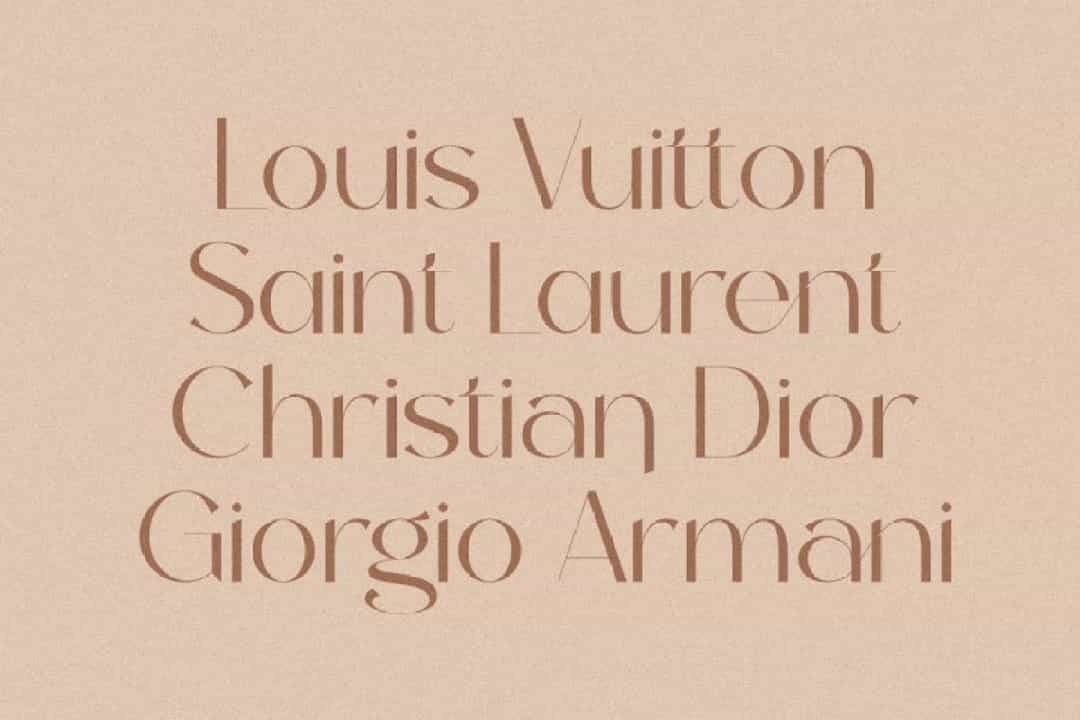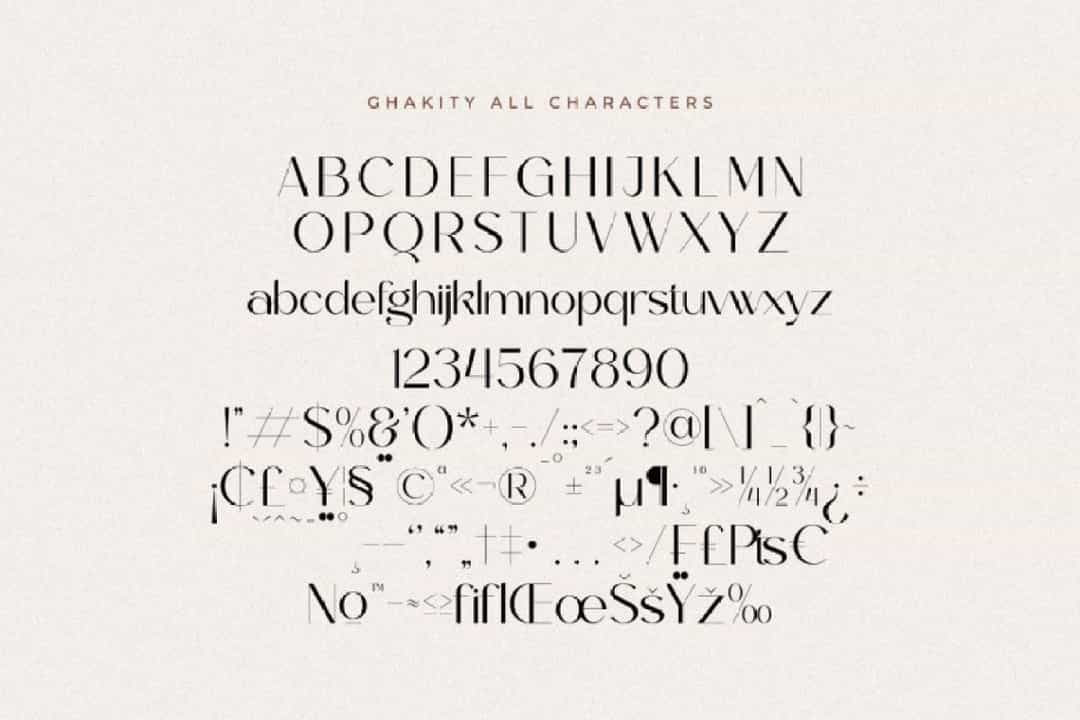
Ghakity Font, designed by Storytype, is an elegant yet contemporary typeface with its own distinct style and modern appeal. Perfect for logo design, book or film name design, fashion brand clothing designs, magazine letters or letters of quotes as well as more, this font stands out in any environment.